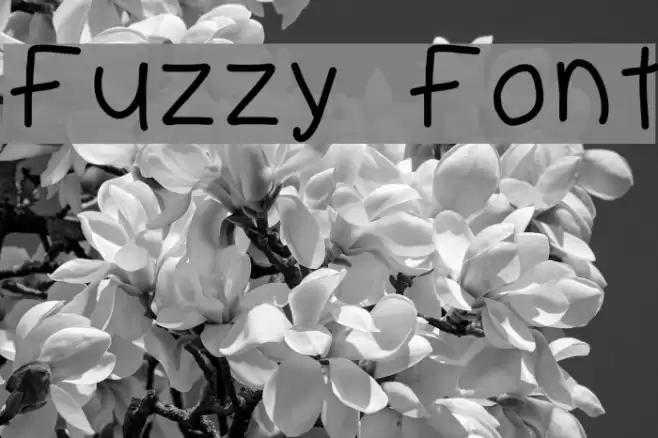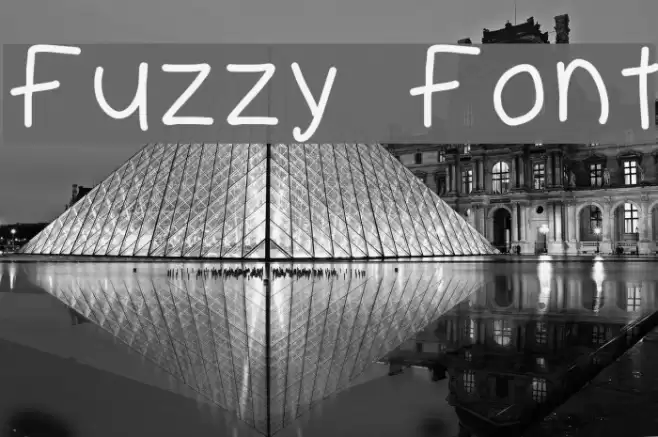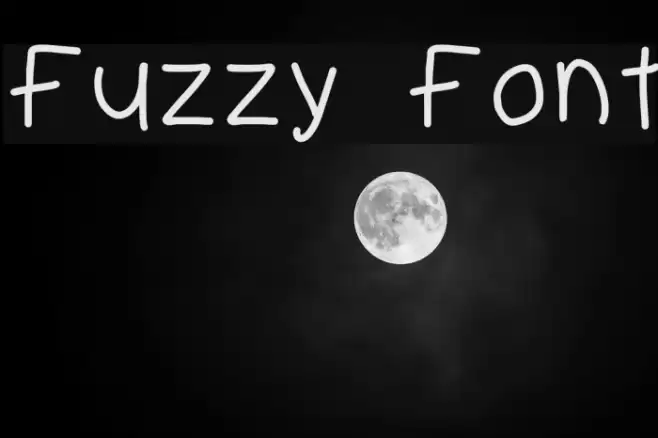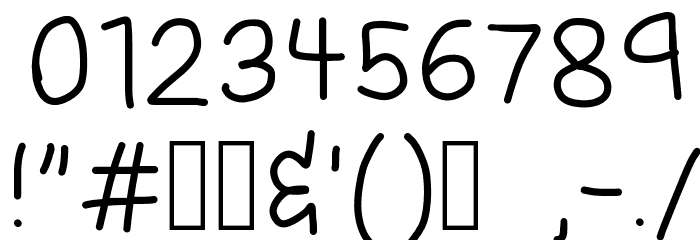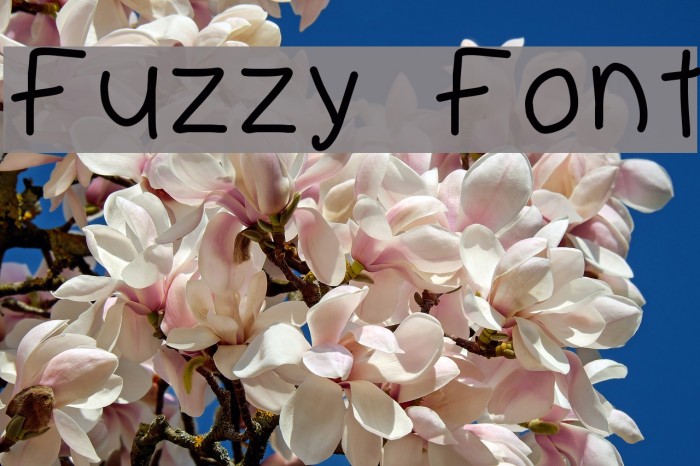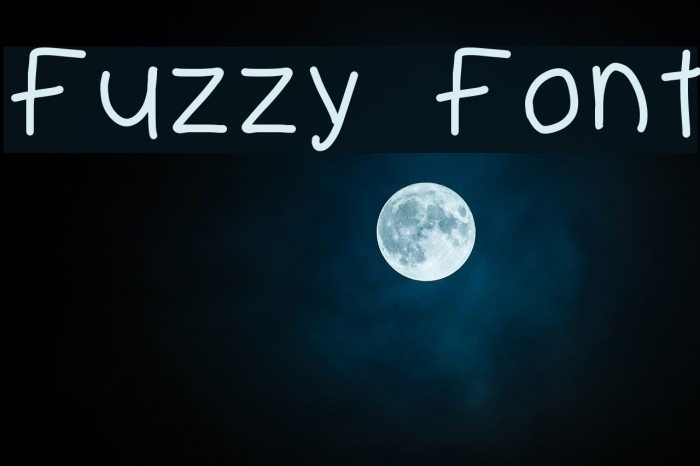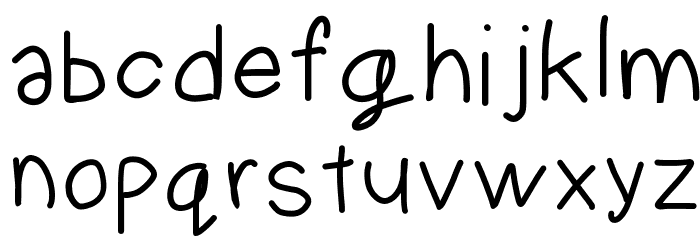
Fuzzy Font
Fuzzy Description
This playful and informal font features a handwritten style with a casual, friendly appearance. The letters are slightly irregular, giving it a whimsical and approachable feel. The strokes are consistent in thickness, providing a uniform look across all characters. The font includes both uppercase and lowercase letters, numerals, and a variety of special characters. Its rounded edges and smooth curves contribute to its relaxed and easy-going aesthetic, making it suitable for projects that aim to convey warmth and personality.
A playful, handwritten font with a casual and friendly style from Handwritten fonts.
- Proposed Projects: Ideal for children's books, greeting cards, personal blogs, and informal branding.
- Overall Style: Casual
- Use Case: Headlines, Informal text, Creative projects